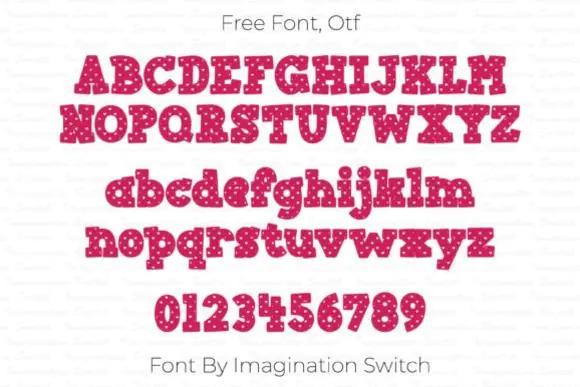
Create beautiful, charming, and visually appealing designs with Sweet Heart Font, a lovely typeface designed to enhance your message with warmth, style, and clear readability. This font is suitable for a wide range of creative uses, making it a versatile choice for designers, crafters, business owners, and content creators.
Sweet Heart Font works beautifully for print designs, web graphics, promotional materials, branding projects, greeting cards, posters, flyers, invitations, social media posts, stickers, product labels, packaging, printable wall art, and digital artwork. Its excellent legibility helps your text stay clear and easy to read, while its sweet visual personality adds charm and emotional appeal.
Whether you are creating romantic designs, promotional visuals, cute branding, love-themed graphics, or everyday creative projects, Sweet Heart Font helps your words stand out in a clean, attractive, and memorable way.